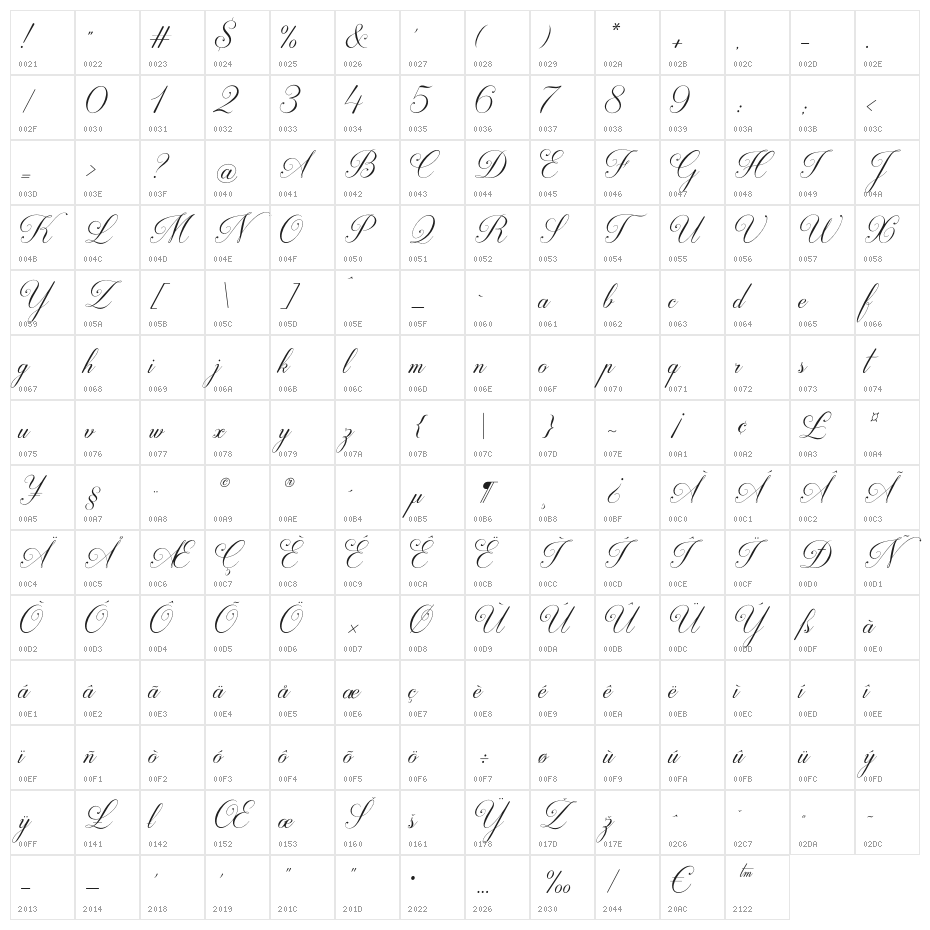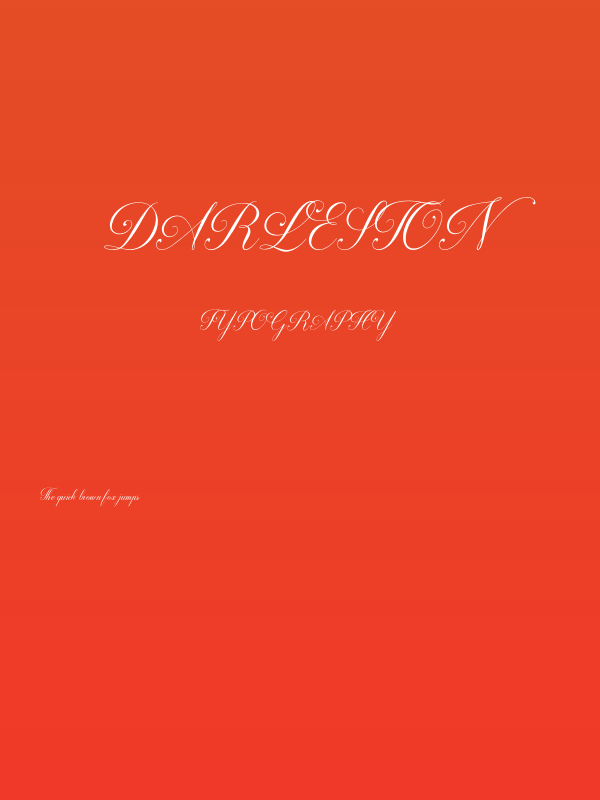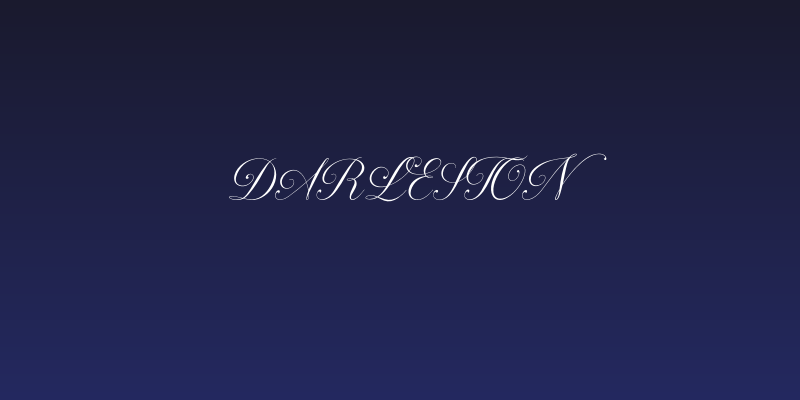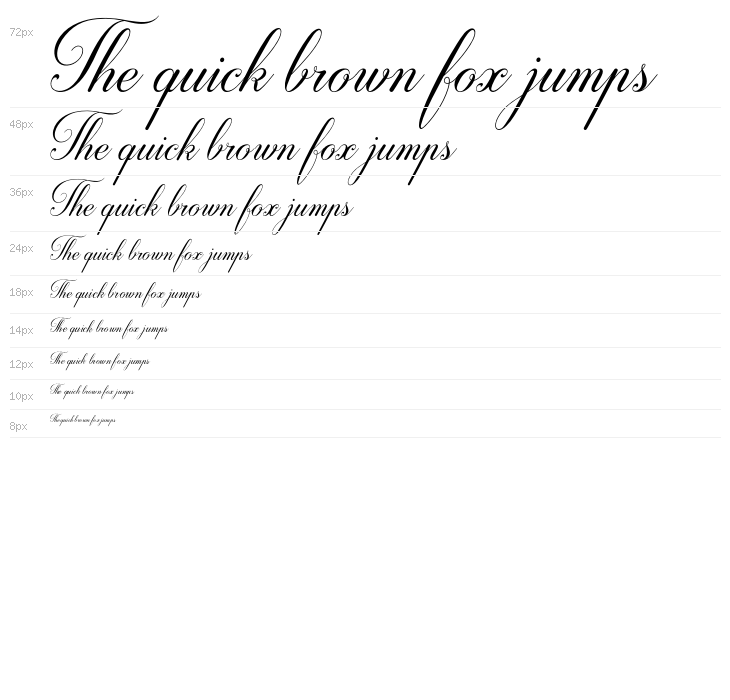
Darleston Font
Darleston Description
This elegant script font features a sophisticated and flowing design, characterized by its graceful curves and intricate swashes. The uppercase letters are adorned with decorative flourishes, adding a touch of luxury and refinement. The lowercase letters maintain a consistent fluidity, enhancing readability while preserving the font's artistic flair. The numerals are stylish and complement the overall aesthetic, making them suitable for formal and decorative purposes. Special characters are thoughtfully designed, ensuring they blend seamlessly with the rest of the font. This font exudes a sense of elegance and is ideal for projects that require a touch of class and sophistication.
| Proposed Projects | Wedding invitations, luxury branding, elegant stationery, and formal event programs. |